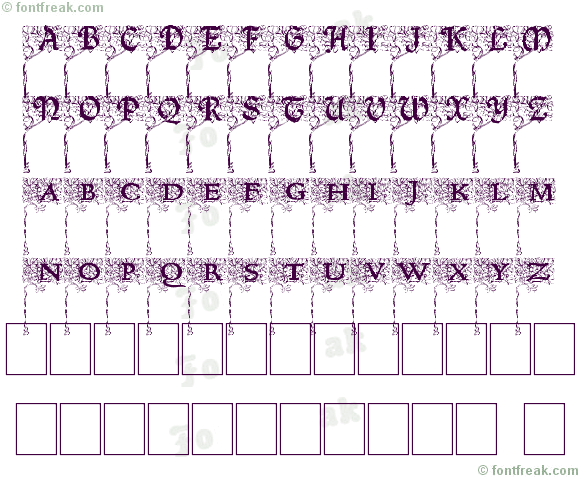
Arborial_Initials
About Arborial
Arborial is a stunning display font created by Paul Lloyd, classified as a decorative typeface. This unique font showcases an enchanting visual style characterized by intricate, nature-inspired motifs that intertwine with its letterforms. The strokes exhibit a delicate weight, providing a graceful contrast that enhances its organic feel. The spacing is thoughtfully designed, allowing each letter to breathe while maintaining a cohesive flow, making it ideal for various creative applications.
The Arborial font is particularly well-suited for wedding invitations, where its whimsical charm can beautifully convey romance and elegance. It is also a fantastic choice for crafting movie posters, adding a touch of artistic flair that captures attention. Additionally, restaurant menus can benefit from Arborial's distinctive style, elevating the dining experience with a unique visual identity. Content creators seeking to add a personal touch to their projects will find this font invaluable, as it can enhance branding and marketing materials with its memorable aesthetic. Graphic designers, in particular, will appreciate the versatility and character that Arborial brings to their work.
What sets Arborial apart is its ability to fuse artistic expression with functionality. The intricate designs within the letters make it a standout choice for anyone looking to create visually striking materials. Its availability as a freeware font further enhances its appeal, allowing designers and small business owners to incorporate it into their projects without any licensing concerns. For those eager to explore this captivating typeface, the Arborial font free download is an excellent opportunity to elevate your design work with a touch of nature-inspired elegance.